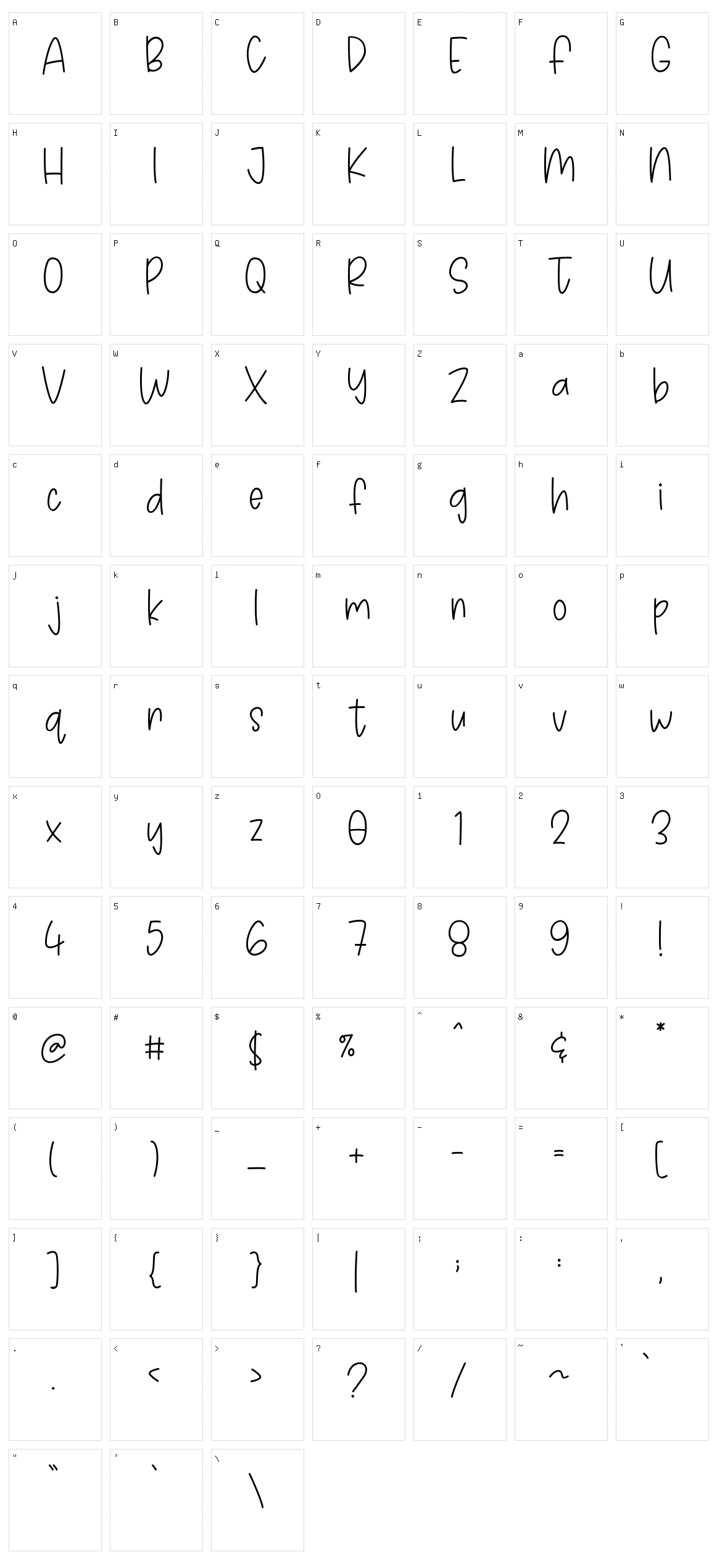
The free font Avoids Dislikes is carefully designed by Muammar Khalid, showcasing a thoughtful balance of creativity and usability and falls under the Script font style. When you download the ZIP file, it contains only 30.96 KB of font files, making it lightweight and quick to download. Please review the license details below to understand permitted usage and distribution rights. If license information is not available, we recommend using this font for personal projects only or contacting the author directly for commercial usage permissions.